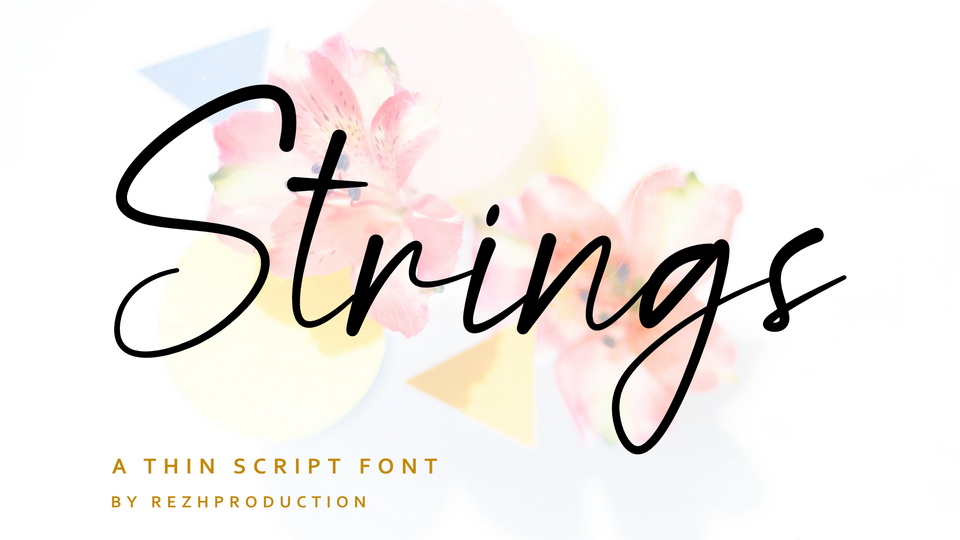
Download Strings font, a lovely and timeless handwritten typeface. Strings font is the best choice for creating eye-catching logos, branding, and quotes.
Designer: rezh.production